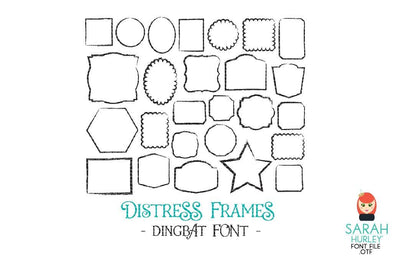
Distress Frames Font
Distress Frames Dingbat Font by Sarah Hurley
Contains 26 Distressed Frame Shapes, each assigned to a letter and accessible via glyphs.